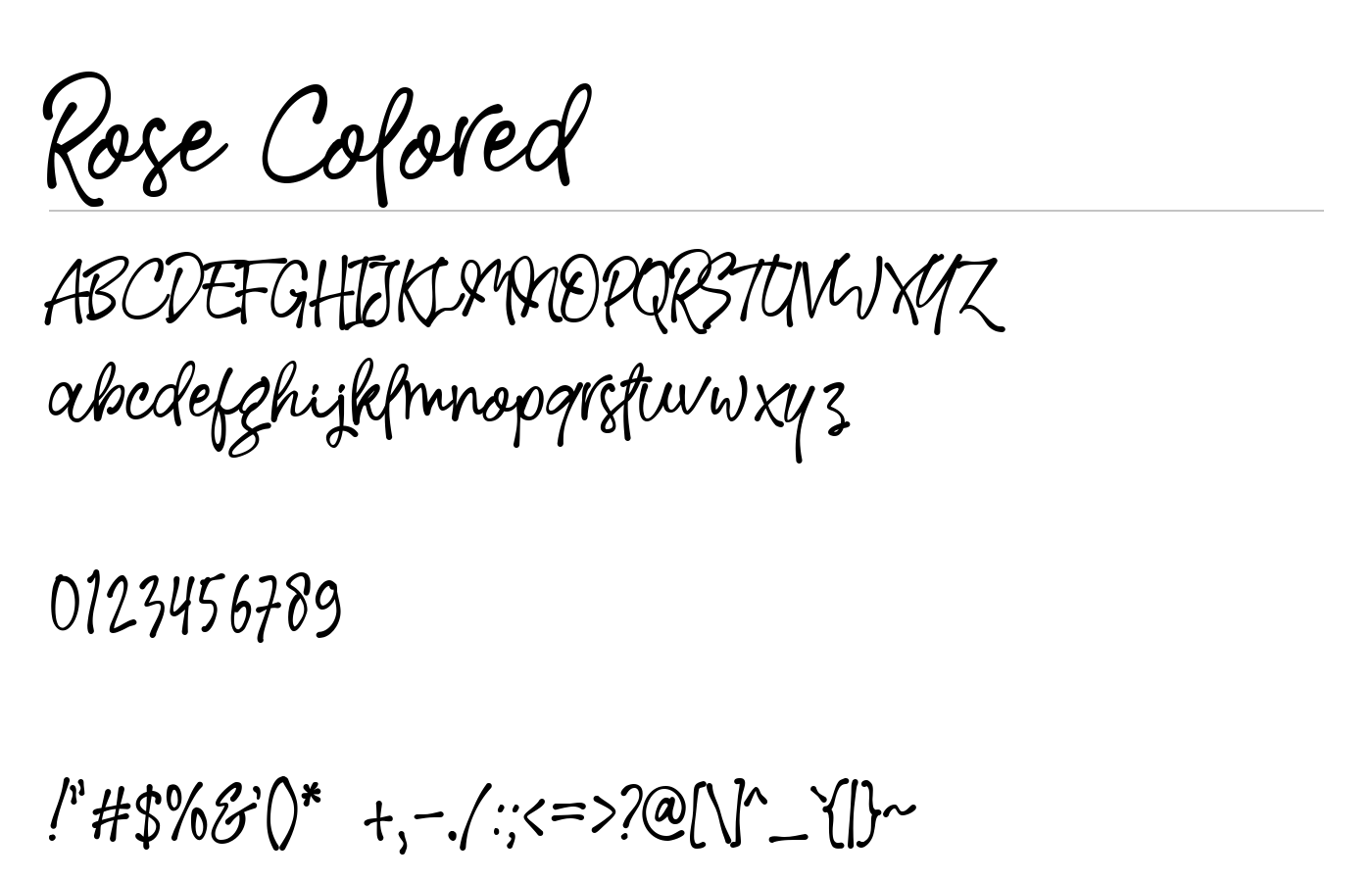
Rose Colored Font is a lively, handwritten script font that features a casual, flowing style with varied stroke thickness and playful letterforms. Its airy, upright characters evoke a friendly and approachable vibe, making it an excellent choice for informal branding, invitations, and creative projects seeking a personal touch. This font’s energetic personality works well in headlines, logos, and packaging where a warm, human feel is desired.
Rose Colored Font
About Rose Colored Font
| Font family | Rose Colored Font |